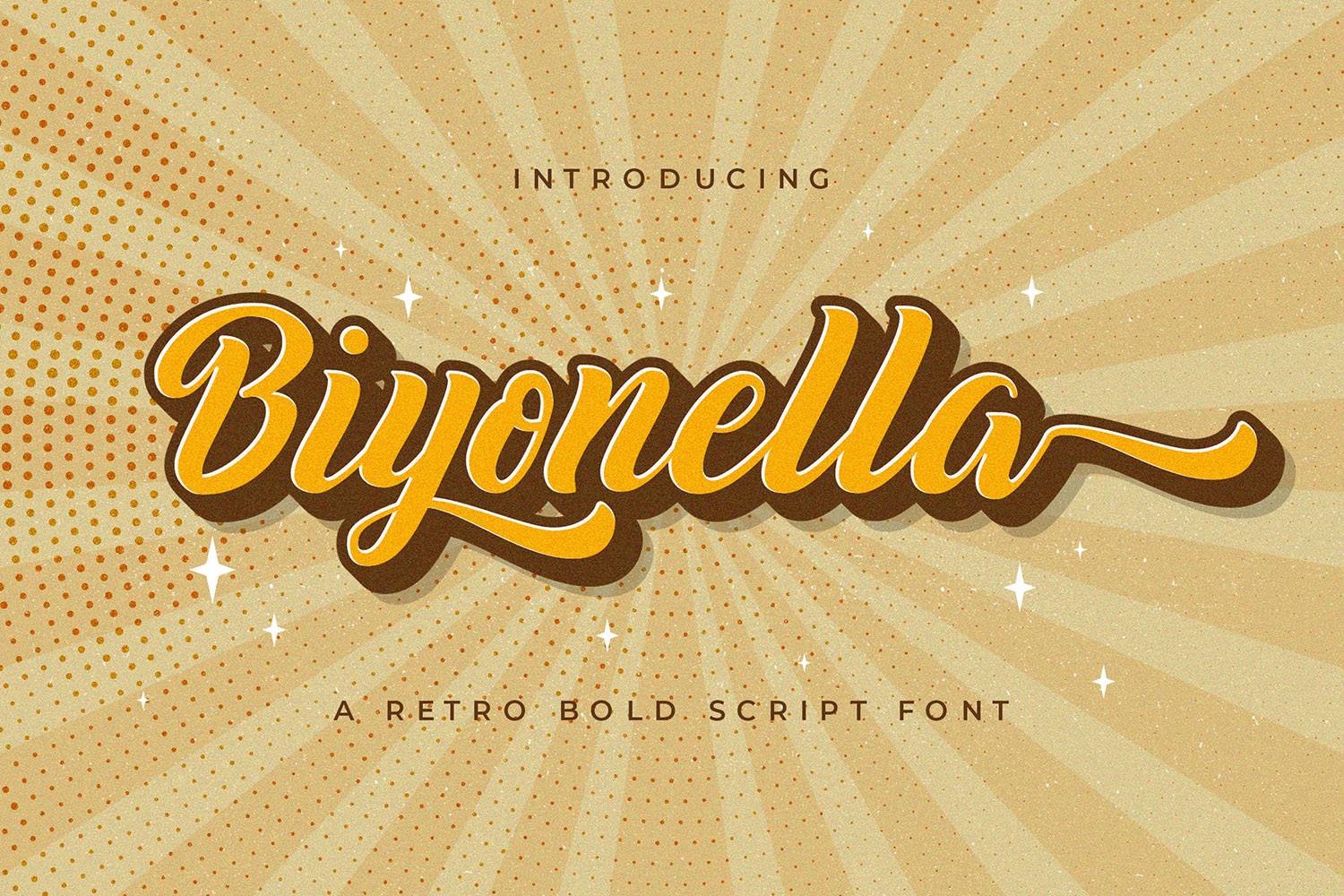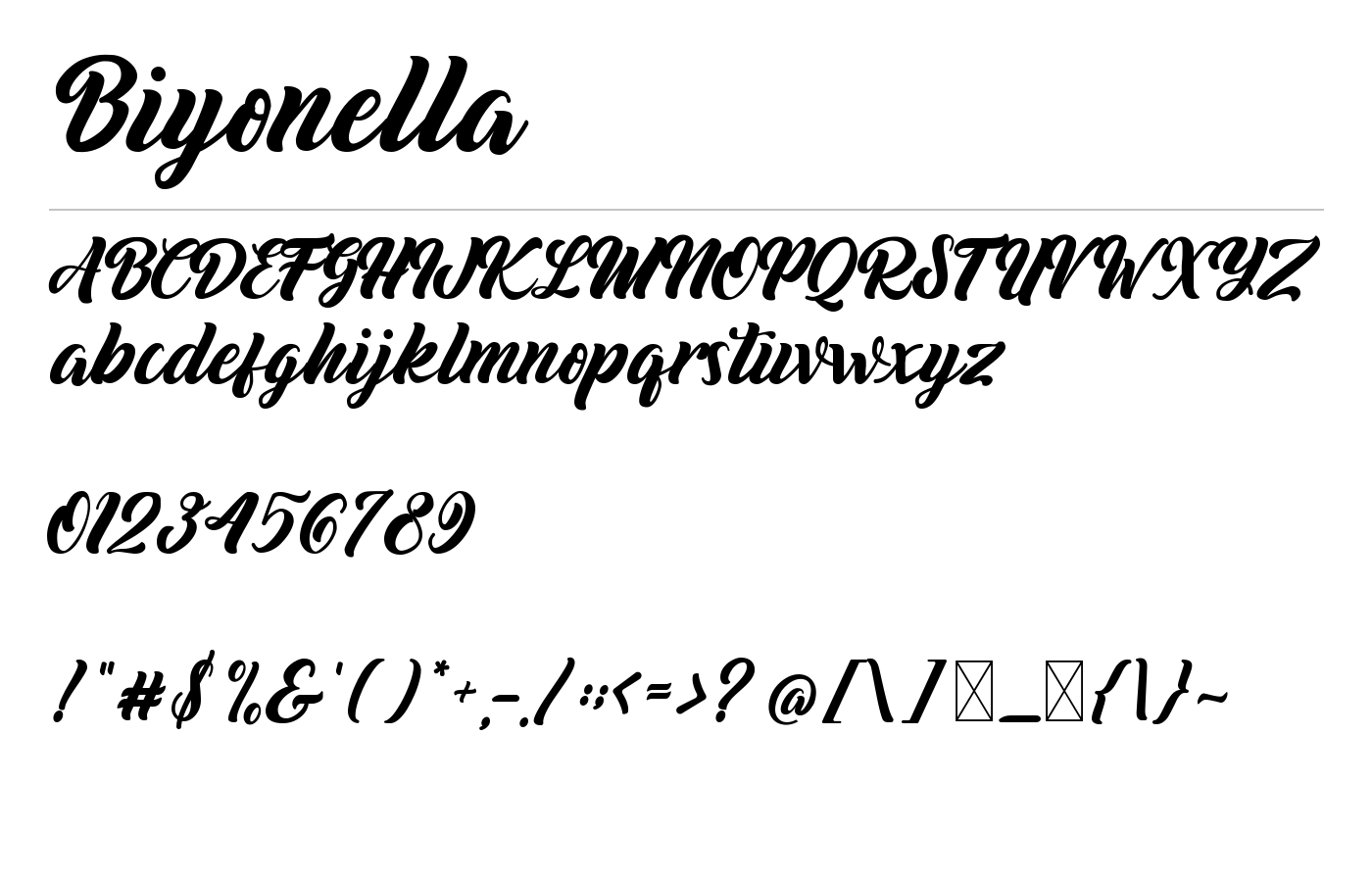
Biyonella is a bold, script-style font with a smooth, flowing stroke that captures a lively yet elegant personality. Its rounded, connected letterforms and moderate contrast give it a friendly, handcrafted feel, making it ideal for branding, invitations, and headlines that seek a touch of sophistication and warmth. This font works especially well where charm and readability need to blend seamlessly.
Biyonella Font
About Biyonella Font
| Font family | Biyonella Font |